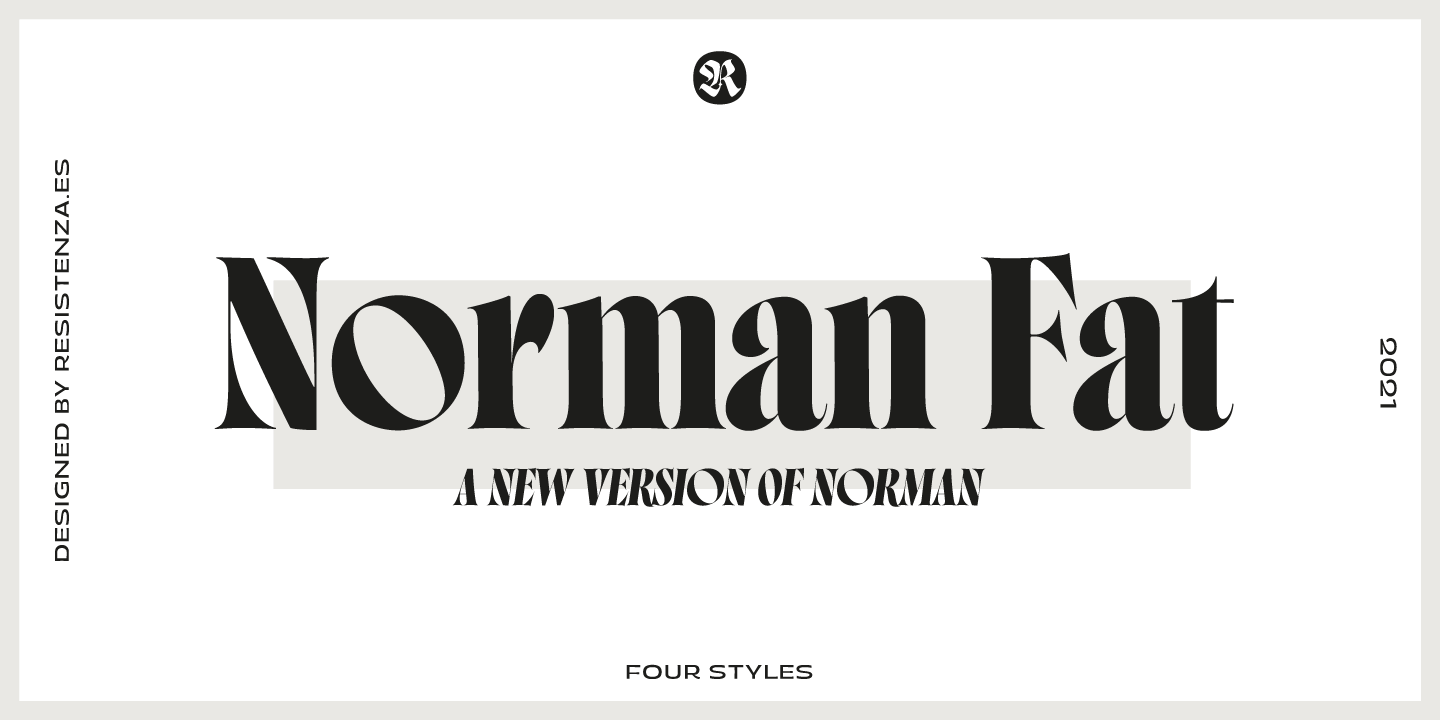
Norman Fat Font is perfect for bold headlines, attention-grabbing posters, sports team logos, food packaging, children's book titles, gaming interfaces, comic book lettering, festival banners, and impactful advertising campaigns that demand maximum visual presence.
Norman Fat Font delivers excitement through its exceptionally bold and chunky character design that commands immediate attention. This heavyweight typeface creates powerful visual impact with its thick strokes and robust letterforms, making it impossible to ignore. The font's playful yet authoritative personality makes it perfect for projects that need to convey strength, fun, and confidence simultaneously.
Norman Fat Font family offers various weights including Ultra Bold, Black, Heavy, and Condensed variations. Each style maintains the font's characteristic boldness while providing different levels of compression and visual density for diverse design applications.
The distinctive charm of Norman Fat Font Free Download lies in its ability to transform ordinary text into eye-catching display elements. Whether you're designing for children's products, sports branding, food industry marketing, or entertainment venues, this font brings energy and personality to every project.
Norman Fat Font excels in both digital and print applications, maintaining its clarity and impact across all sizes. From billboard advertisements to mobile app interfaces, this versatile typeface ensures your message gets noticed and remembered by your target audience.